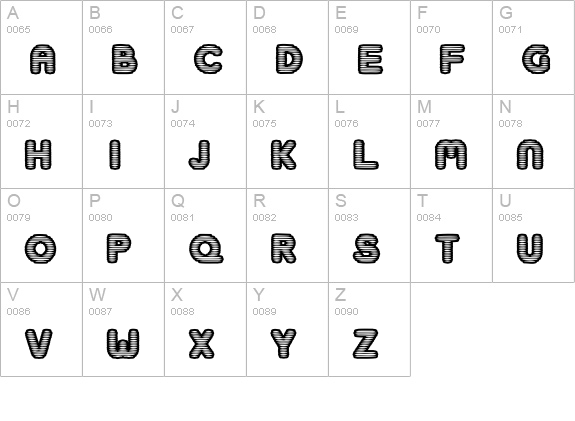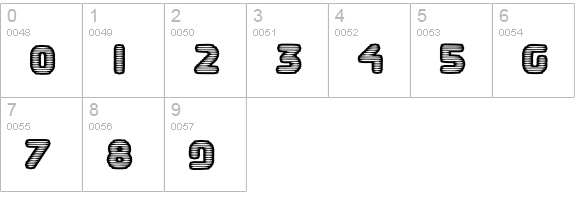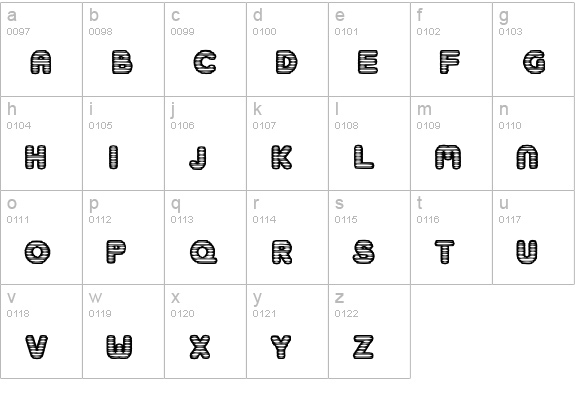
Introducing BoobToob font - a playful and versatile typeface perfect for adding a touch of fun to your designs. BoobToob features quirky and whimsical characters that are sure to stand out and make a statement. This font is ideal for a variety of projects, from posters to invitations to social media graphics. The best part? BoobToob is completely free to download at FontsMarket.com! Simply head over to the website and start using this charming font in your designs today. Whether you're looking to add a touch of personality to your next project or simply want to experiment with a new font style, BoobToob is the perfect choice. Download it now and let your creativity shine with this delightful and free typeface.